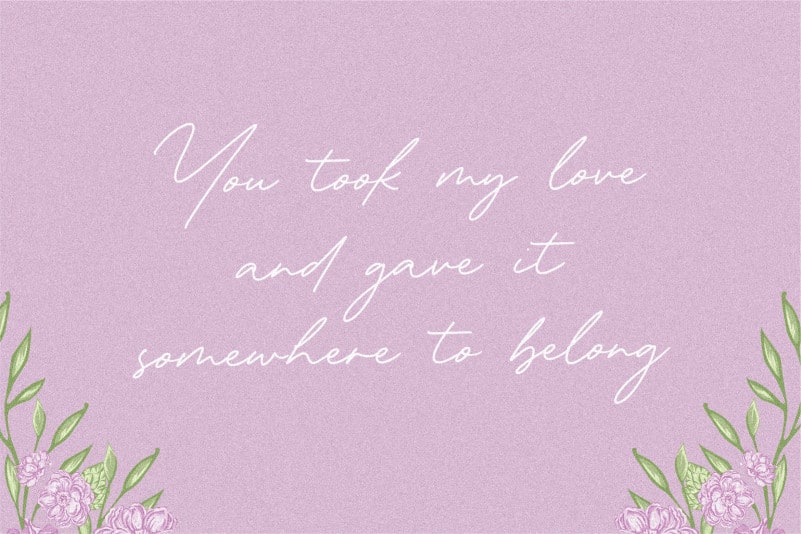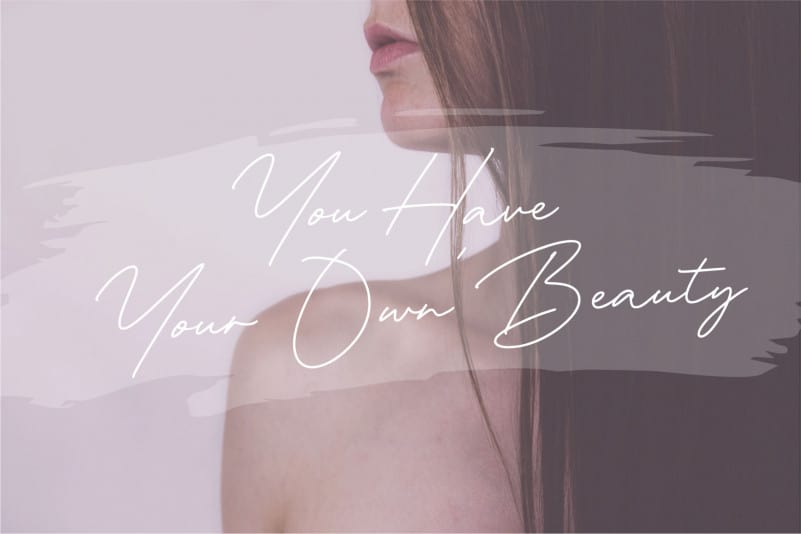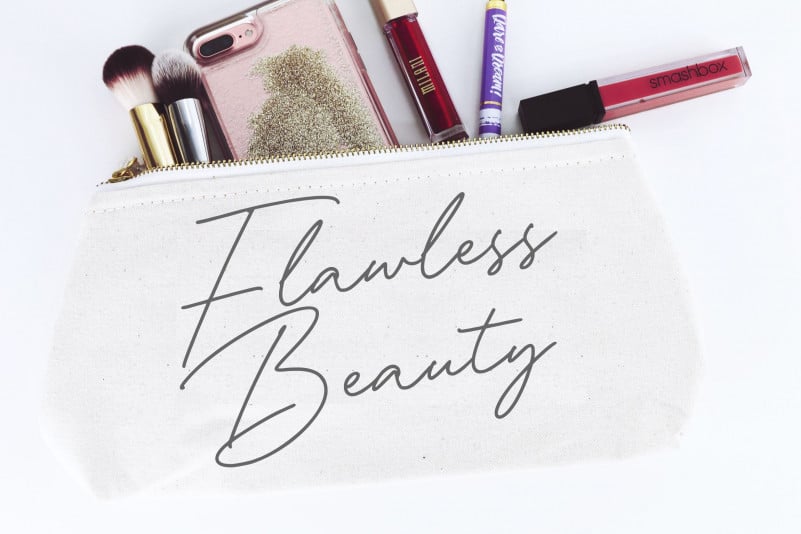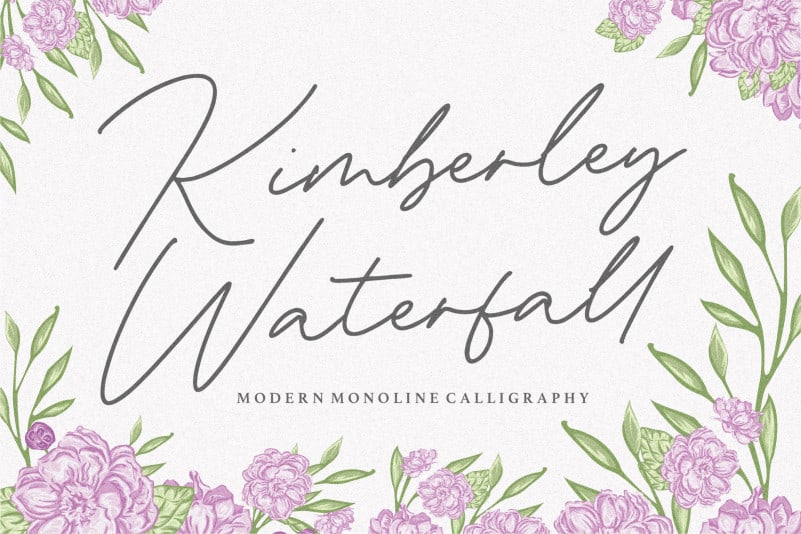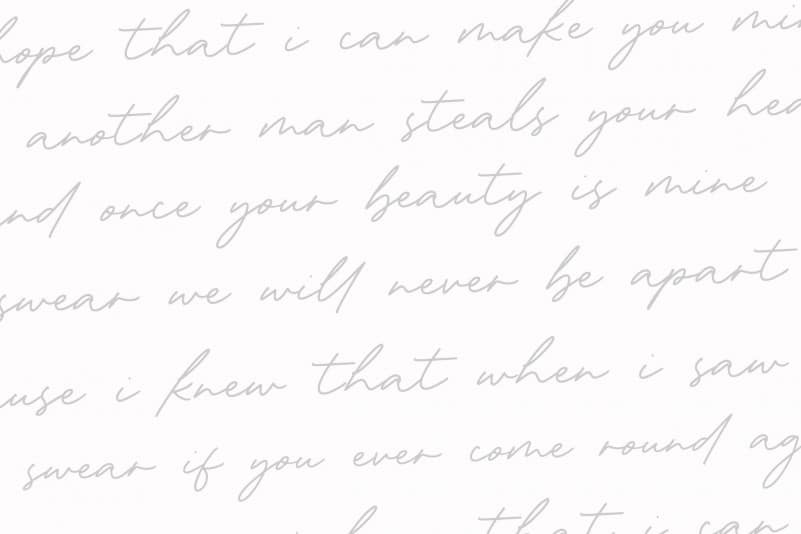
Kimberley Waterfall Monoline Calligraphy Font
Proudly Present, Kimberley Waterfall Monoline Calligraphy Font.
Kimberley Waterfall is a Modern Monoline Calligraphy Font.
Kimberley Waterfall is perfect for product packaging, branding project, megazine, social media, wedding, or just used to express words above the background.